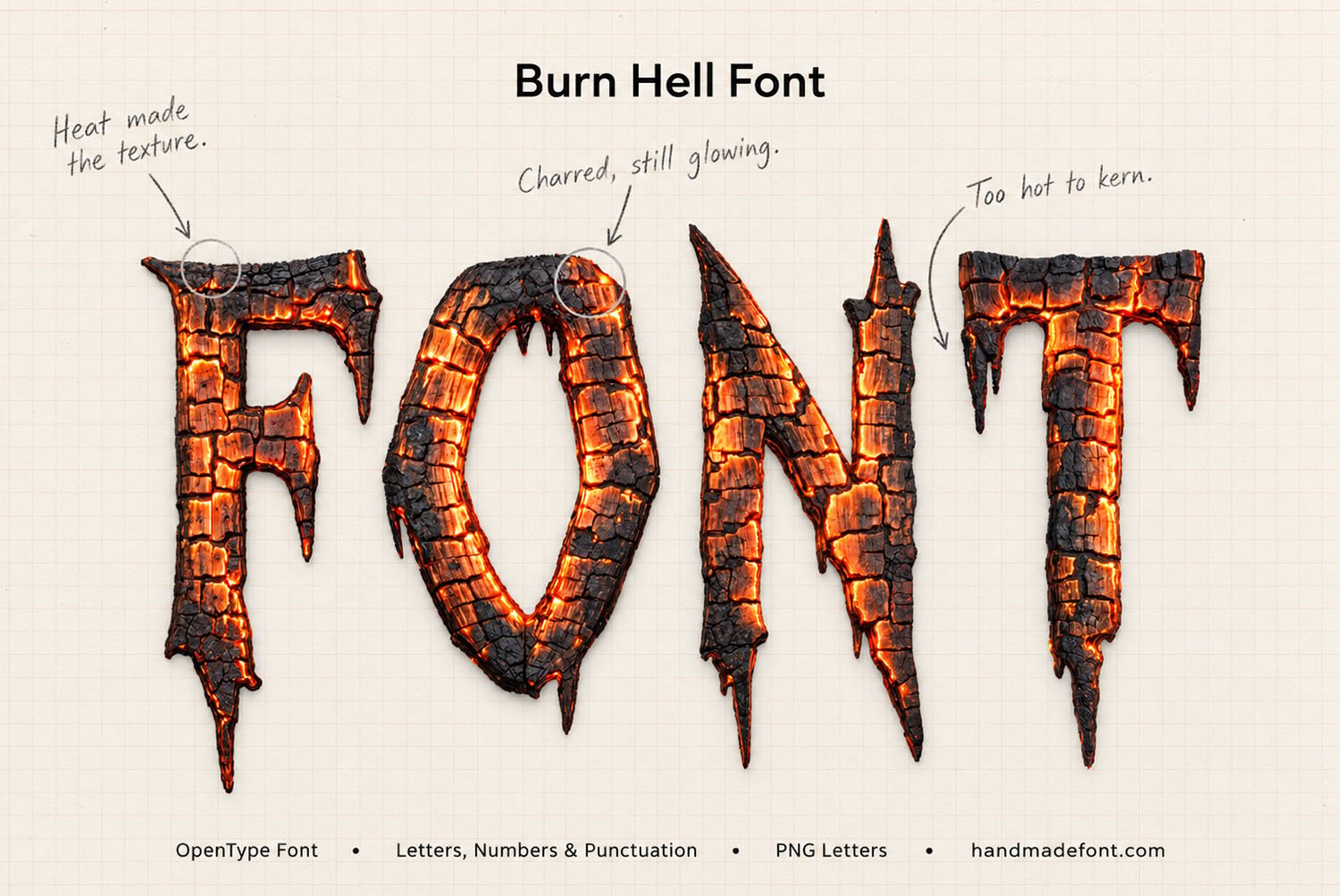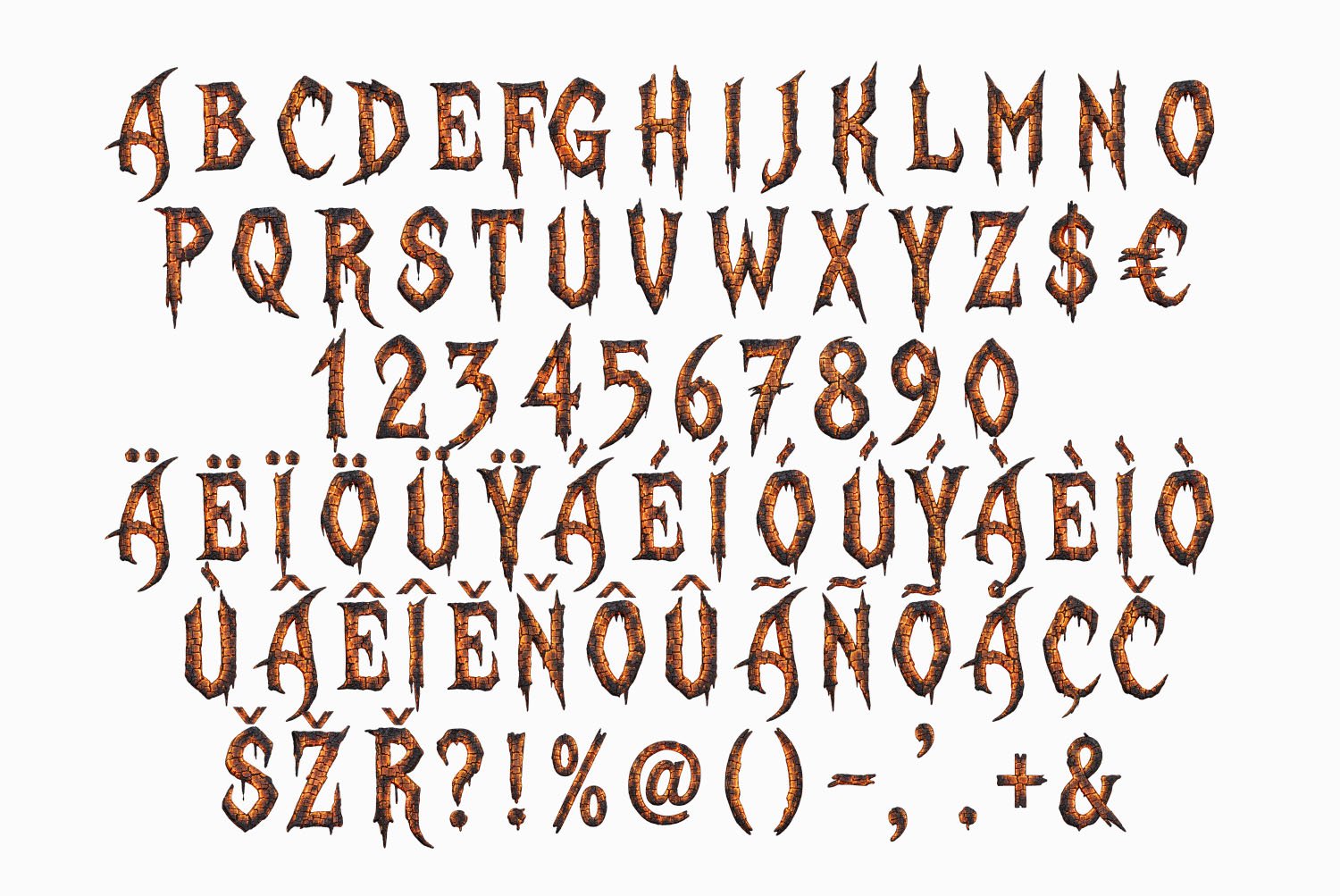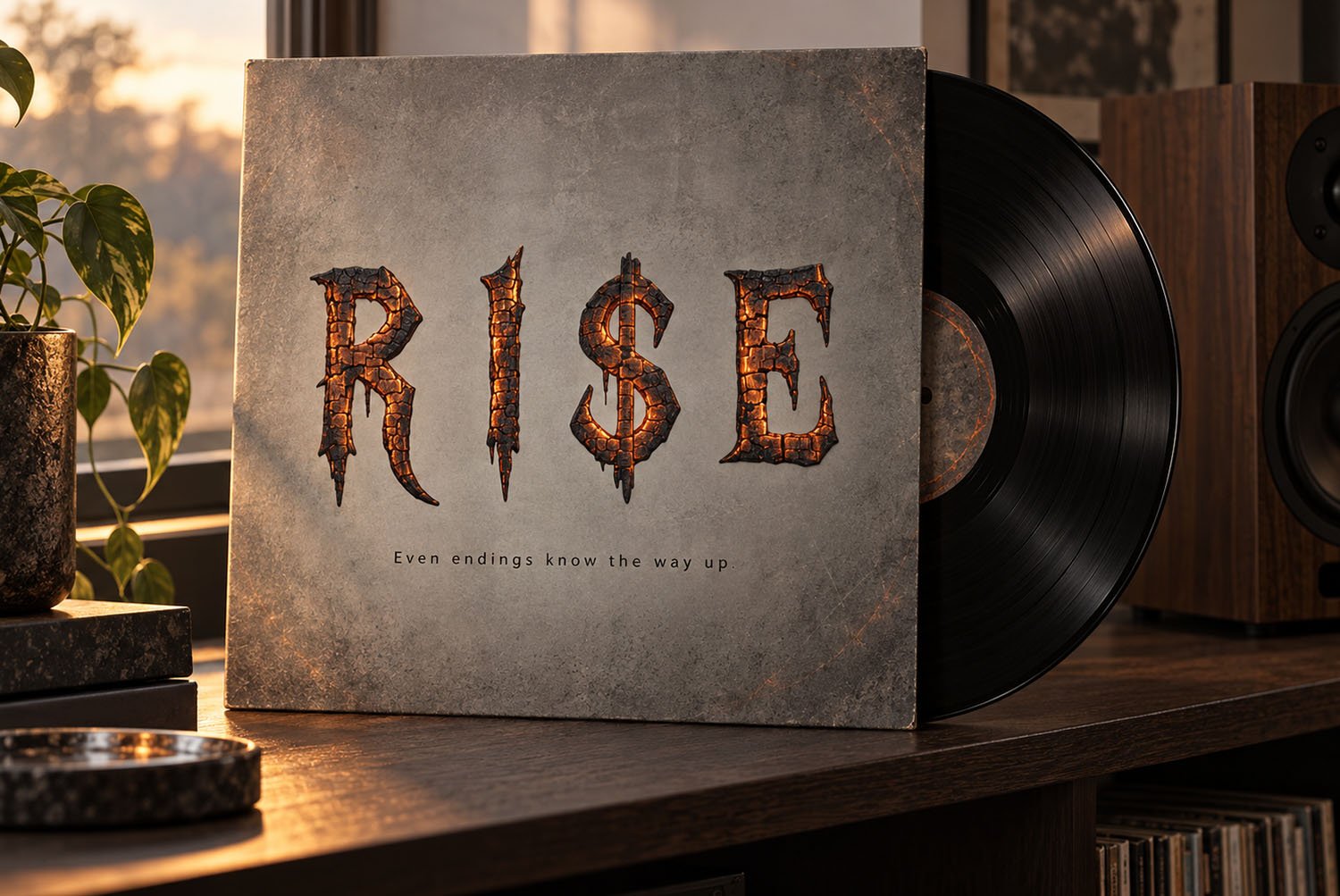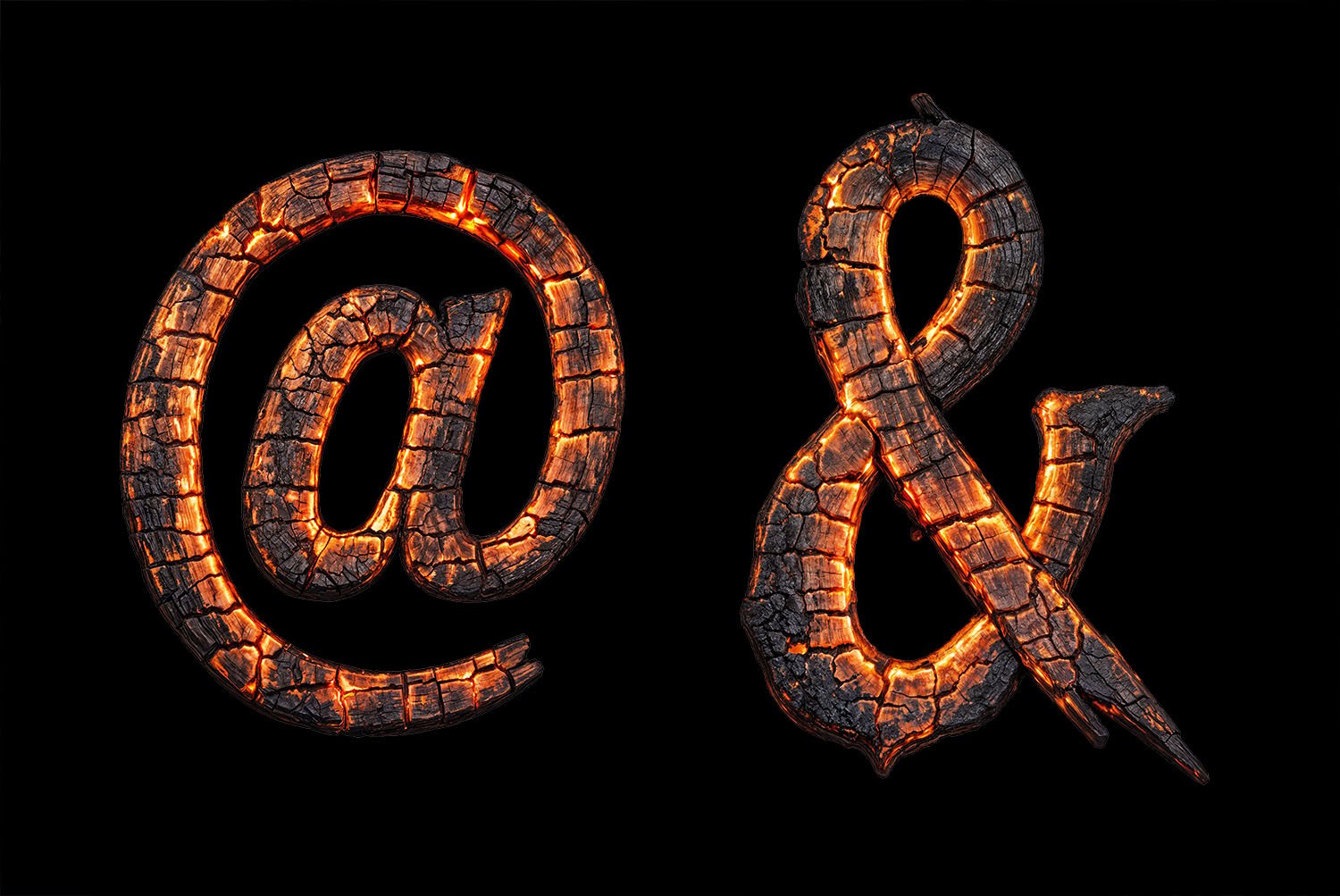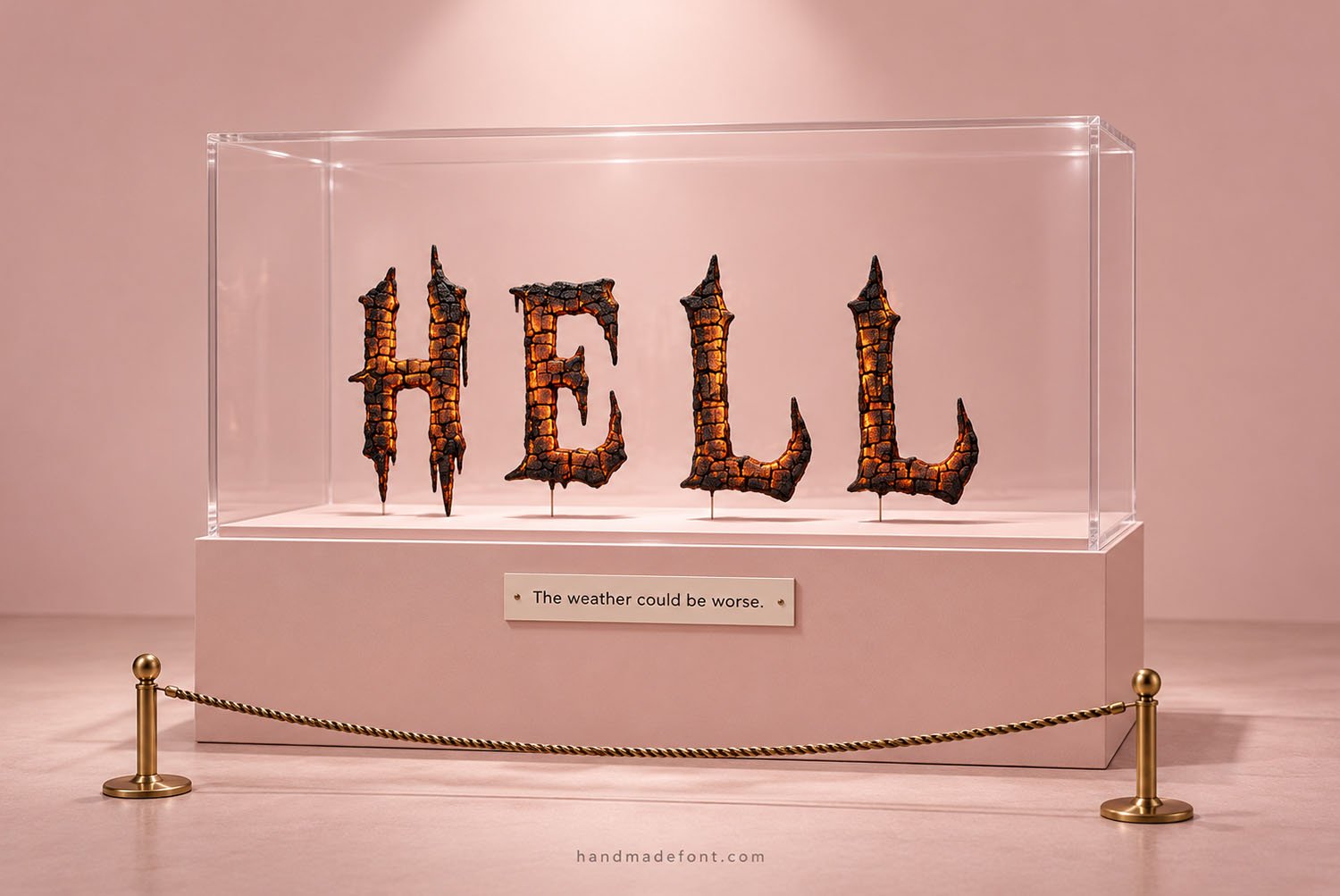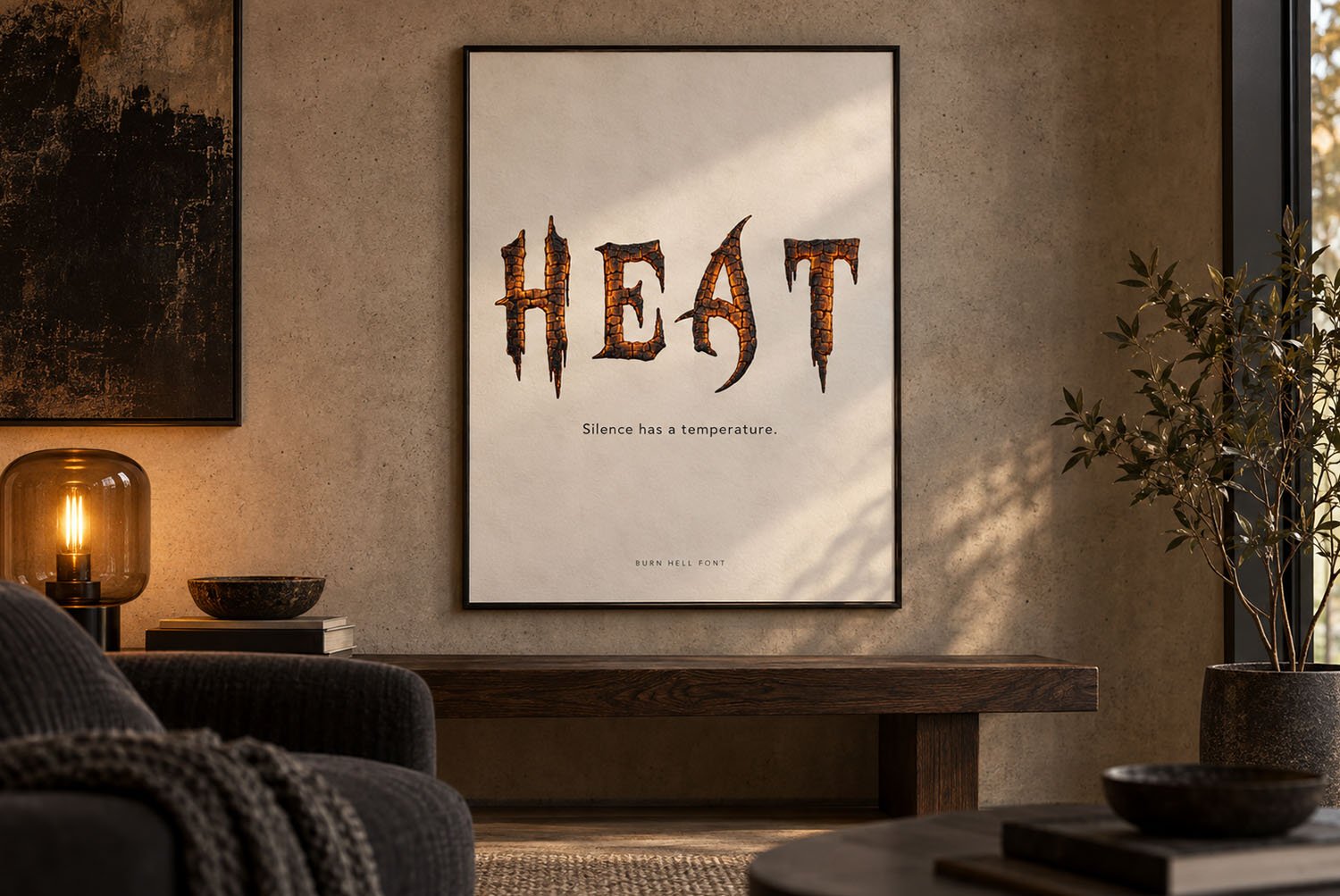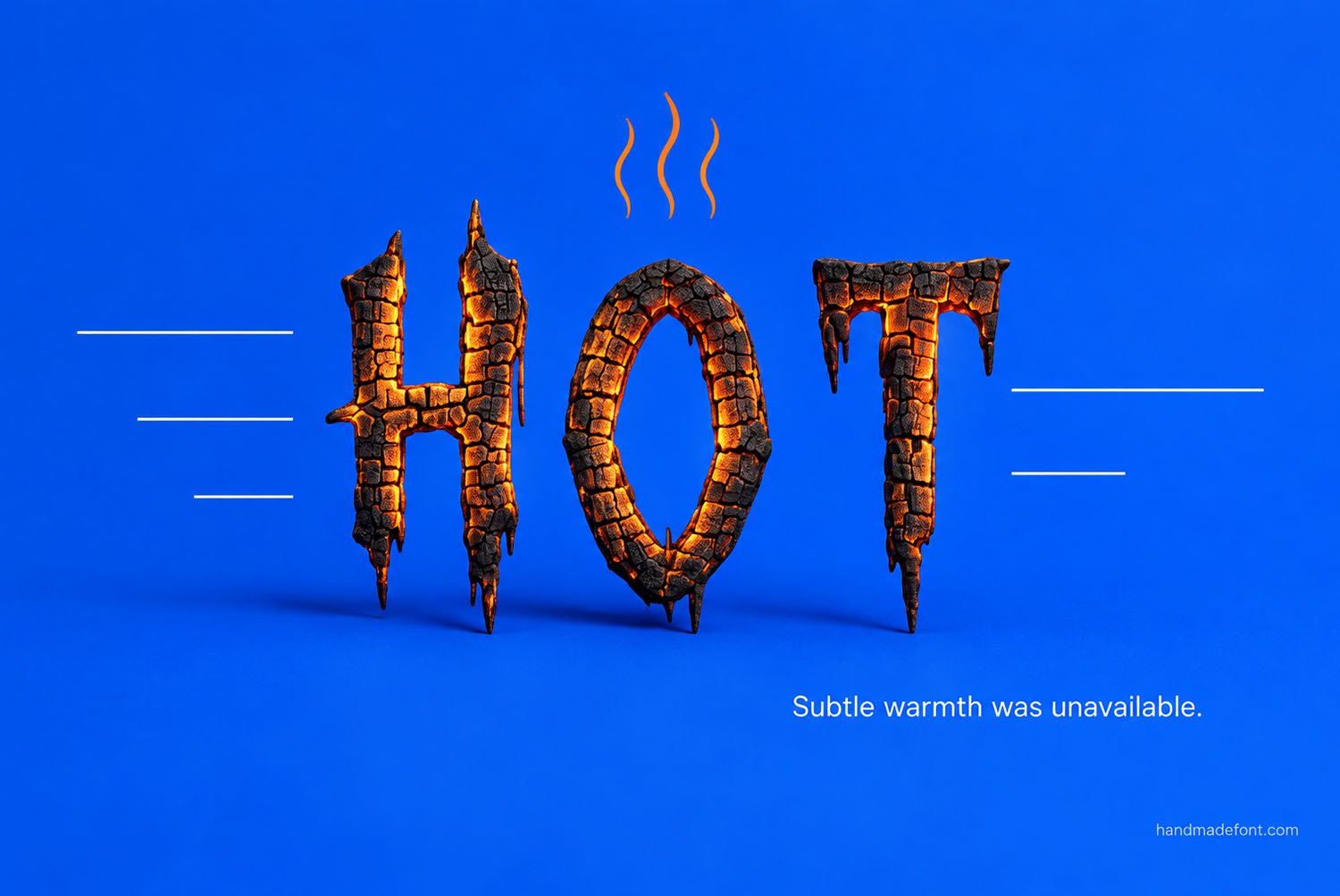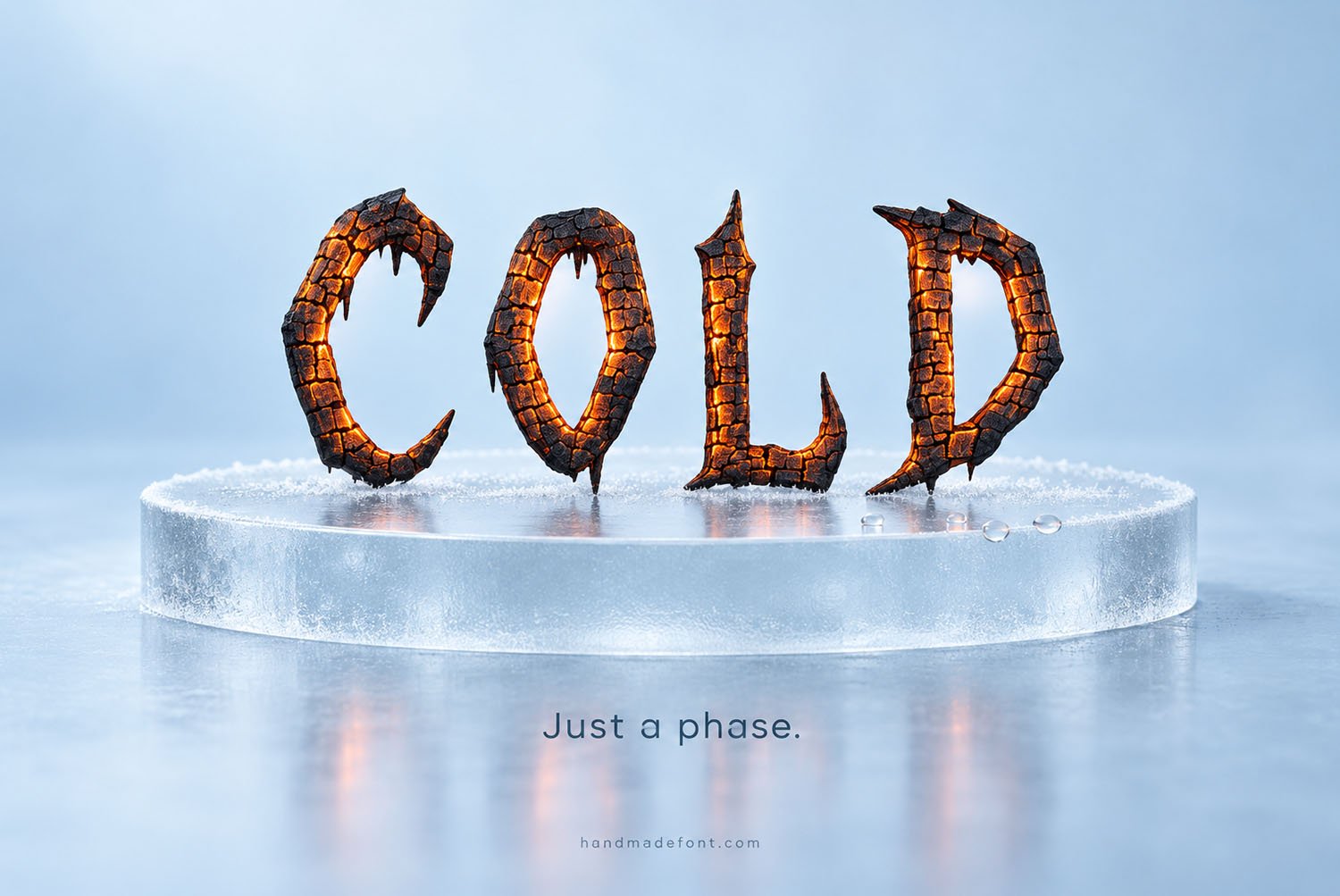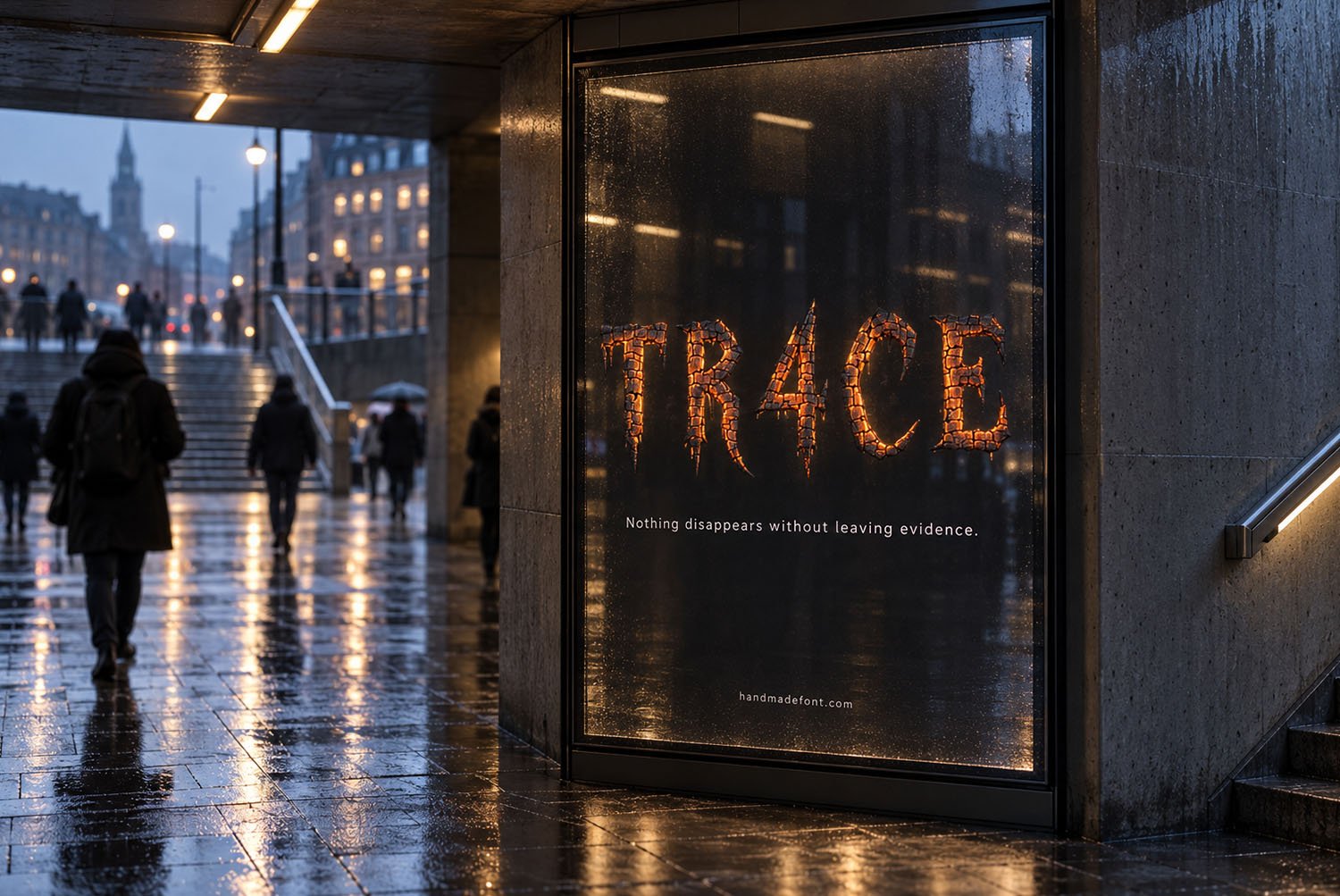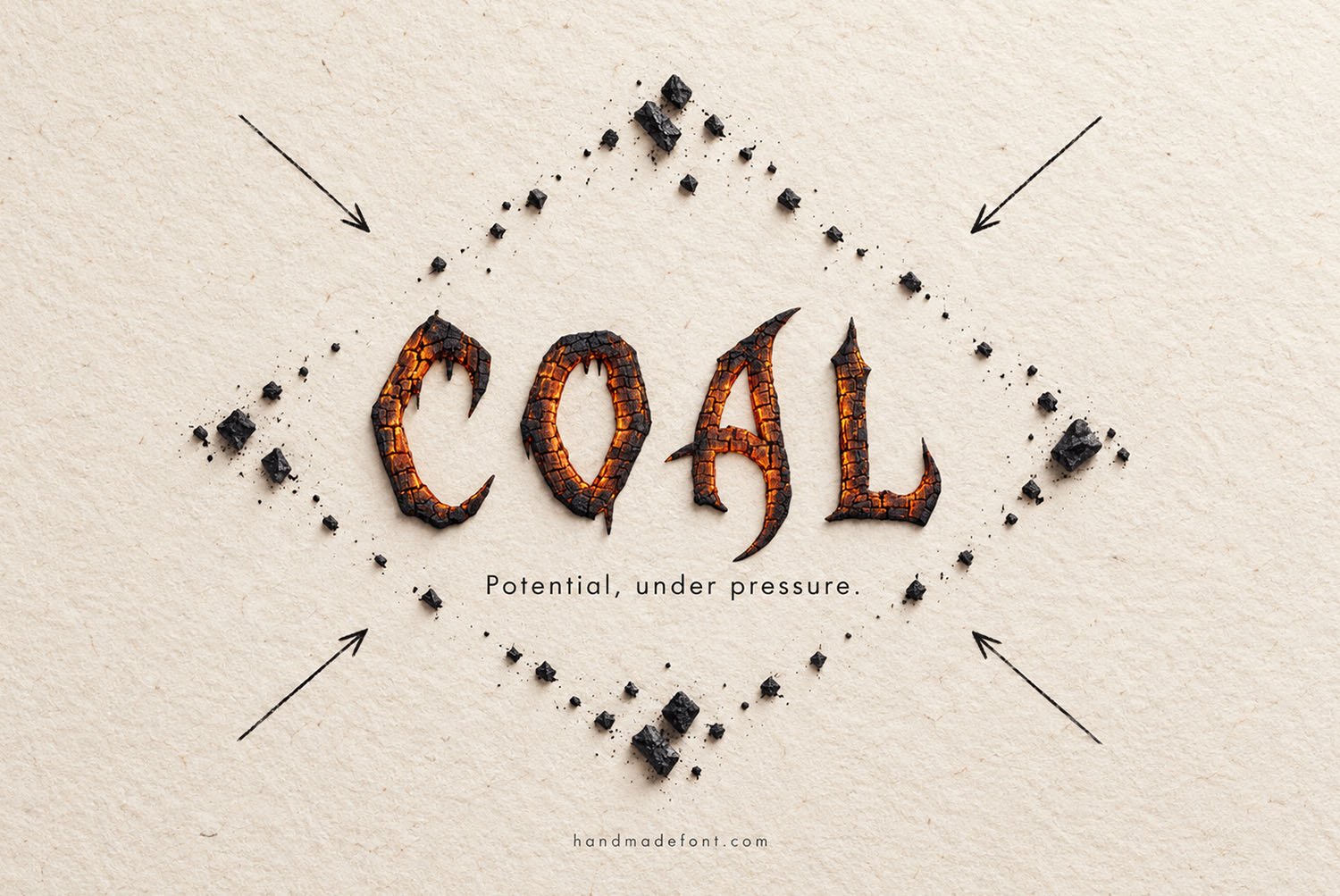
Burn Hell Font
Burn Hell Font is a dramatic handmade typeface inspired by cracked charcoal, glowing embers, and molten lava. Its rugged, scorched characters bring intense heat and dark fantasy energy to every design. Use it for Halloween posters, horror titles, game graphics, metal album covers, fiery logos, event promotions, and cinematic social media. It includes uppercase and lowercase letters, numbers, punctuation, and selected accented characters. Burn Hell Font comes as an easy-to-use OTF file and includes every character separately as a high-quality PNG letter with a transparent background. Create blazing custom compositions.